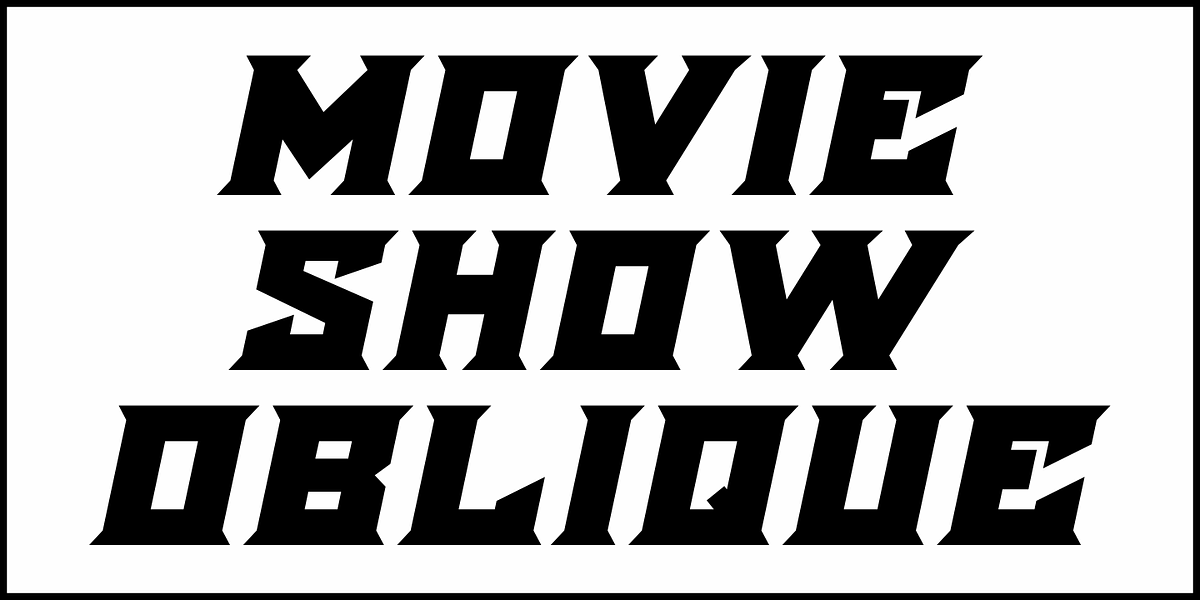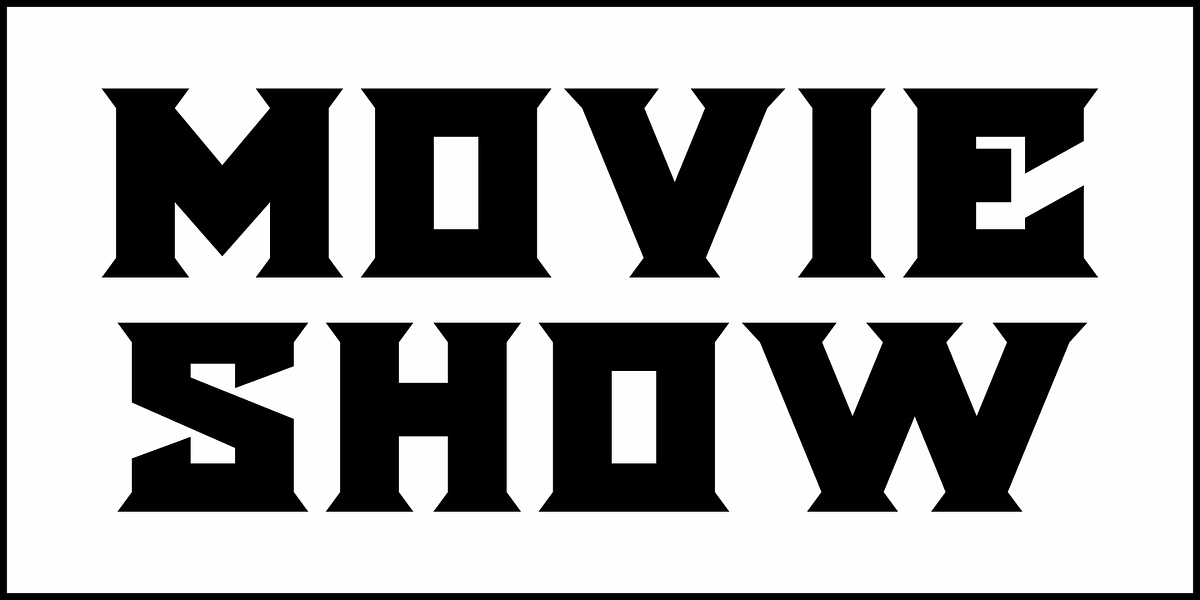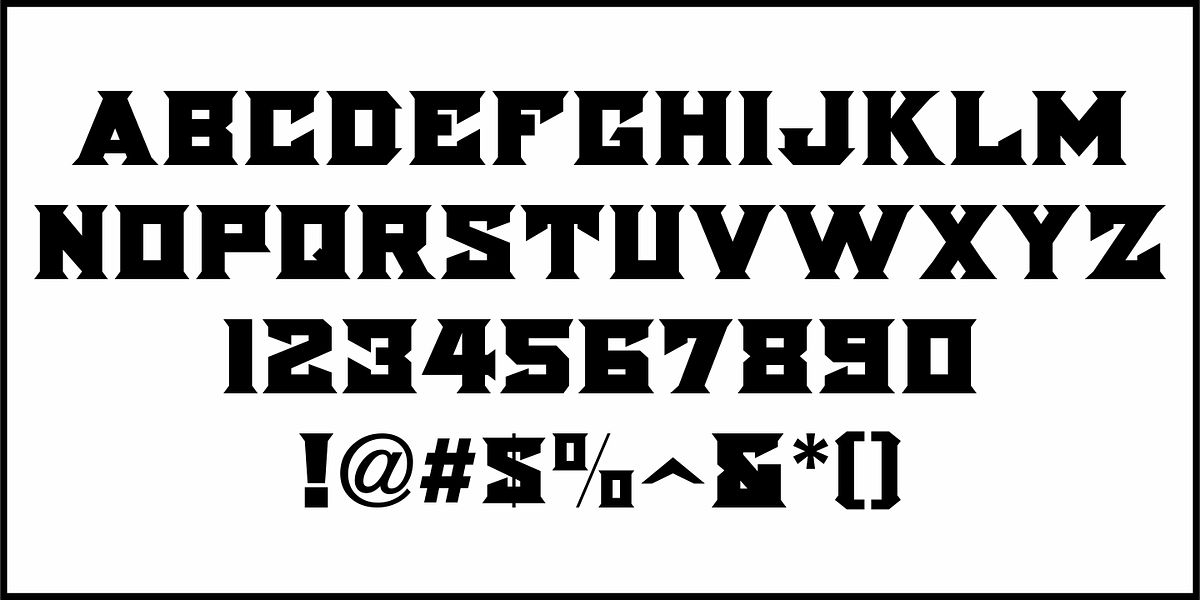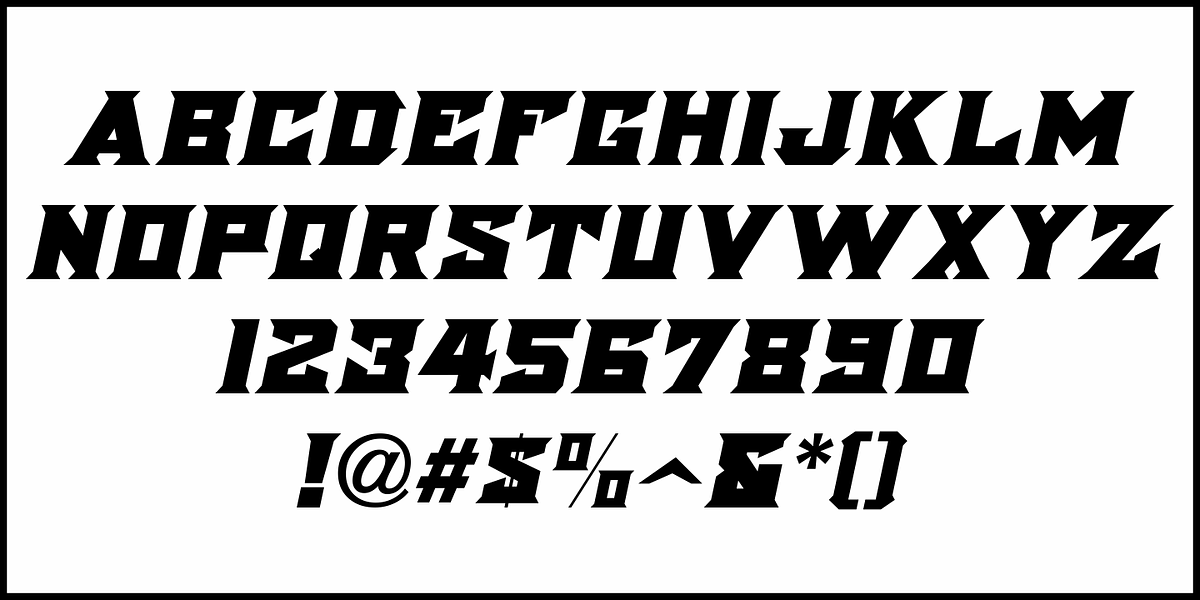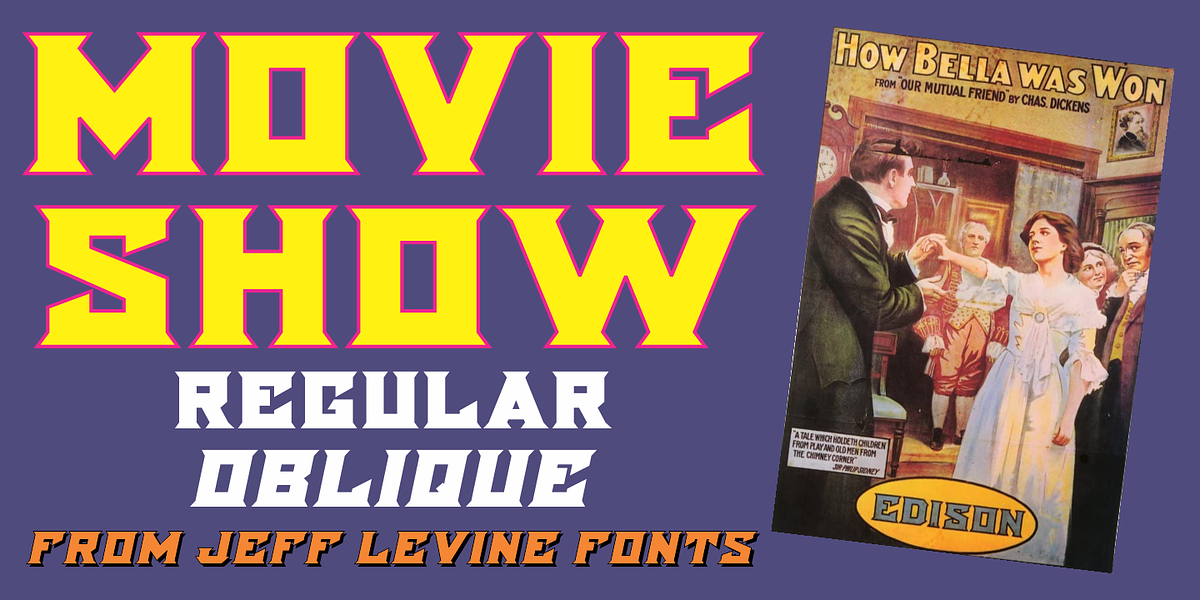
Movie Show JNL
A 1911 movie poster for a film called “How Bella Was Won” from the Edison studios had the name “Edison” hand lettered in a bold, spurred sans serif design.
These few letters became the basis for Movie Show JNL, which is available in both regular and oblique versions.